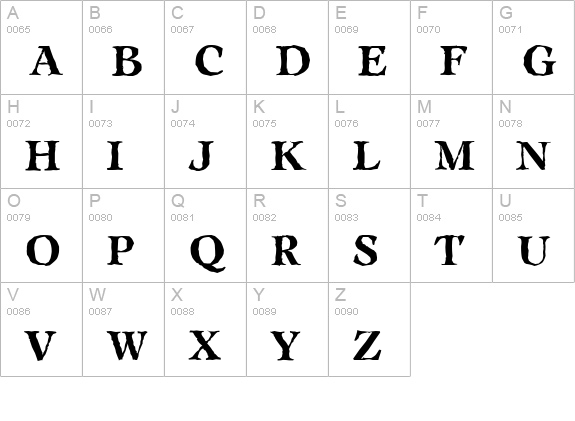
LeamingtonAntique-Bold Font Details
LeamingtonAntique-Bold is a strong, high-contrast variant in the LeamingtonAntique typeface family \xE2\x80\x94 well suited to headlines, attention-grabbing titles, and strong calls-to-action.
Introducing the exquisite LeamingtonAntique-Bold font, a timeless display typeface exuding elegance and sophistication. This font boasts intricate details and a classic charm that instantly captivates the eye. Its bold strokes and intricate serifs make a bold statement, perfect for creating stunning headlines, logos, and branding materials. The LeamingtonAntique-Bold font is a versatile typeface that effortlessly combines traditional elements with a modern twist, making it suitable for a wide range of design projects. Whether you're working on a vintage-inspired poster, a luxurious invitation, or a refined packaging design, this font will add a touch of class and sophistication to your work. And the best part? LeamingtonAntique-Bold is available for free download at FontsMarket.com. Simply head over to the website and get your hands on this stunning font to elevate your design projects to new heights. Don't miss out on the opportunity to enhance your creations with the timeless beauty of LeamingtonAntique-Bold font.